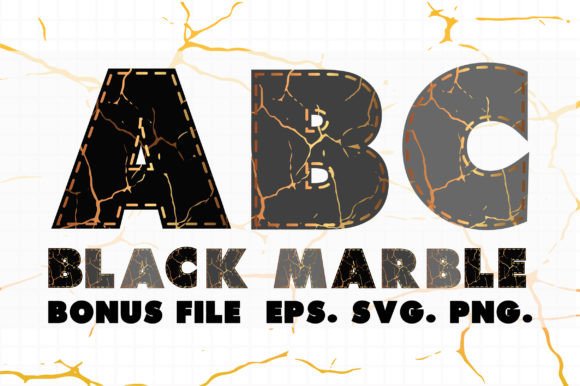
Prepare to be captivated by Black Marble Font – a stunning creation by NN-Font Design, where the captivating allure of black marble meets the radiant glow of gold. This font is a symphony of elegance and sophistication, its delicate patterns intertwining to form an enchanting display. Each letter glimmers with the luxurious brilliance of gold, casting a spellbinding aura that commands attention.
With Black Marble Font, your designs will exude an air of opulence and grandeur. Transport your projects to a realm where creativity and luxury converge, leaving an everlasting impression of awe and admiration. Let this mesmerizing font elevate your creations to new heights, adding a touch of extravagance that sets your work apart.
Embrace the allure of Black Marble Font and immerse yourself in a world of extraordinary beauty. Its versatility knows no bounds, making it the perfect choice for a wide range of projects – from wedding invitations and greeting cards to logos and branding. Unleash your creativity and witness the transformation as this font adds a touch of magic to your designs, leaving your audience mesmerized.
Don't settle for ordinary when you can have extraordinary. Embrace the enchantment of Black Marble Font and let your designs shine with unparalleled elegance and sophistication. Download it today and embark on a creative journey like no other. Indulge in the opulence of gold and the timeless appeal of black marble, and let your creations leave an indelible mark on the world.